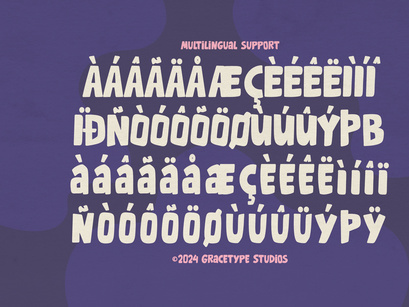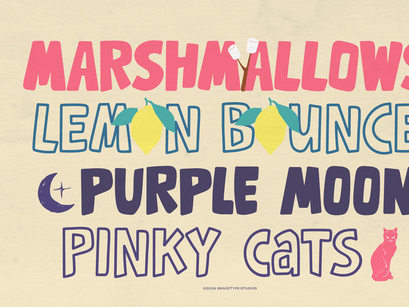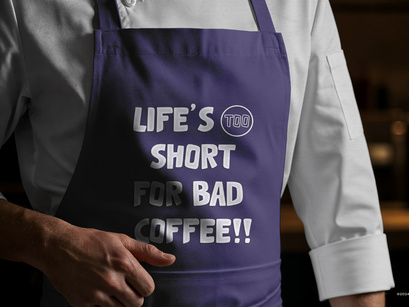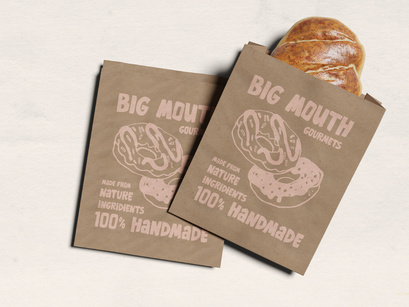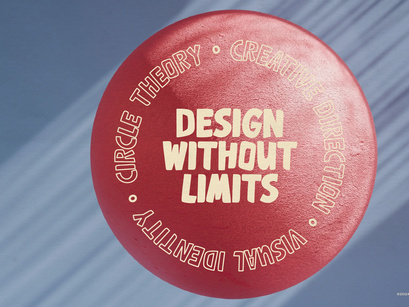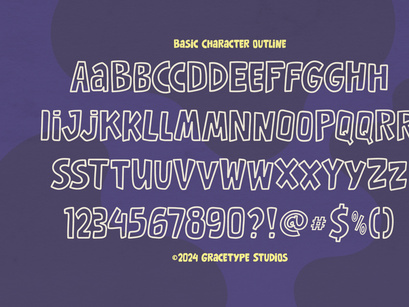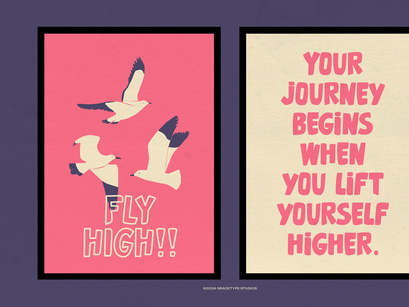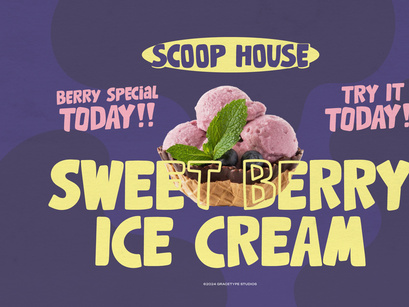
Wubbo Jumble | Hand Drawn Font, from Gracetypestudio, suitable for any projects such as: logos, branding projects, homeware designs, product packaging, mugs, quotes, posters, shopping bags, t-shirts, book covers, name card, invitation cards, greeting cards, label, photography, watermark, special events, and all your other lovely projects that need a Hand Drawn taste.